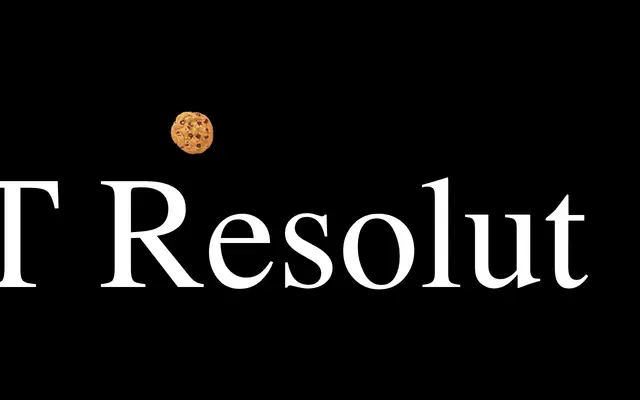
RST Resolut
A sans-serif typeface from Reset Type Studio with minimal information available from the scraped page.
The scraped page content for RST Resolut returned insufficient detail to characterise the typeface fully. Reset Type Studio is a contemporary foundry, and the naming convention suggests a purposeful, structured design. Further detail on weights, styles and intended use would require direct inspection of the full product page.
The name and foundry context suggest a contemporary grotesque or geometric sans; insufficient page content to determine subcategory with confidence, defaulting to grotesque.